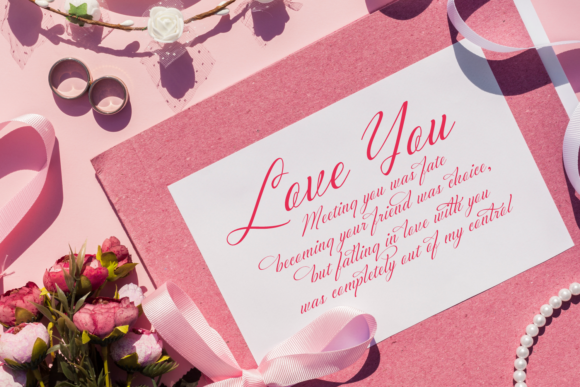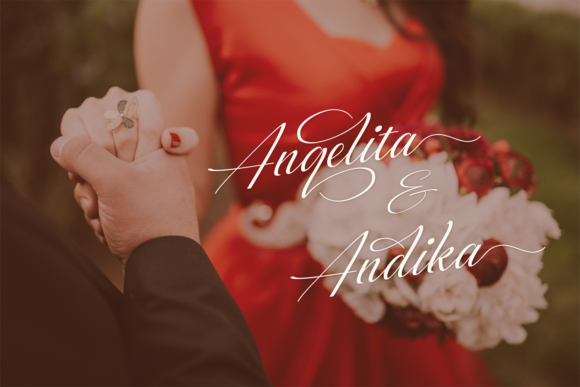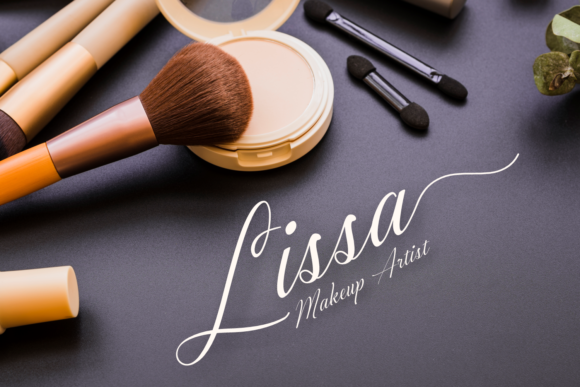
Introduction to Khartina Font
Have you ever sat in front of a blank canvas, staring at a sea of possibilities, and felt the excitement of bringing a creative project to life? That’s exactly where I was when I discovered the Khartina Font – a beautiful, elegant script font that instantly captured my heart. With its flowing curves and delicate lines, this font is the perfect addition to any crafting project, adding a touch of femininity and whimsy that’s hard to resist.
As a designer, I can attest to the value of having high-quality design resources at our fingertips. And that’s exactly what the Khartina Font offers – a versatile, free download that can be used on a transparent background to add a touch of sophistication to any project. Whether you’re working on a wedding invitation, a birthday card, or a social media graphic, this font is sure to elevate your design game.
Key Features of Khartina Font
- High-quality font design, ideal for creative projects requiring a sophisticated look.
- Unique characteristics include elegant lines, subtle curves, and a refined aesthetic, making it perfect for branding, typography, and editorial design.
Honest Review: Khartina Font
As a designer, I’m always on the lookout for high-quality design resources to elevate my creative projects. The Khartina Font is one such resource that has caught my attention.
What works well: ✨ The Khartina Font is a beautiful, elegant script font that’s perfect for adding a touch of sophistication to your designs. It’s highly legible and versatile, making it suitable for a wide range of creative projects, from invitations to editorial designs.
The font also features a transparent background, which makes it easy to customize and layer with other design elements. I appreciate the level of detail and care that’s gone into creating this font, and I’m impressed by its high quality.
- Beautiful, elegant script font
- Highly legible and versatile
Overall, I’m impressed by the Khartina Font, and I think it’s a great addition to any designer’s toolkit. While it has some limitations, its high quality and versatility make it a valuable resource for creative projects.
Getting the Most Out of Khartina Font
For optimal results, use the Khartina Font in combination with other high-quality design resources. Experiment with different font sizes, colors, and effects to create a unique design style. The transparent background feature allows for creative flexibility and customization.
The Khartina Font is ideal for a variety of design projects, including brochures, flyers, business cards, and social media graphics. Its high-quality design and transparent background make it perfect for creating eye-catching and professional-looking designs.